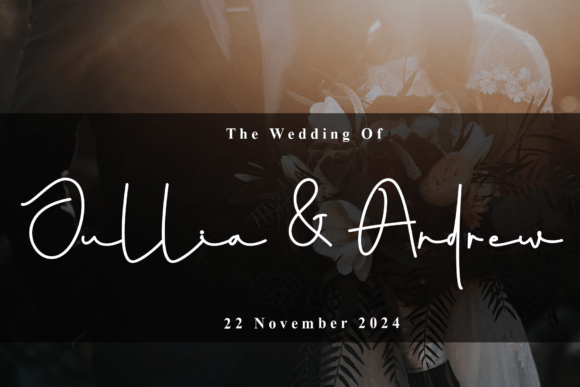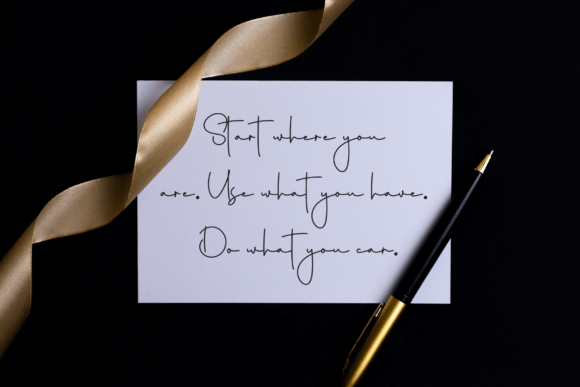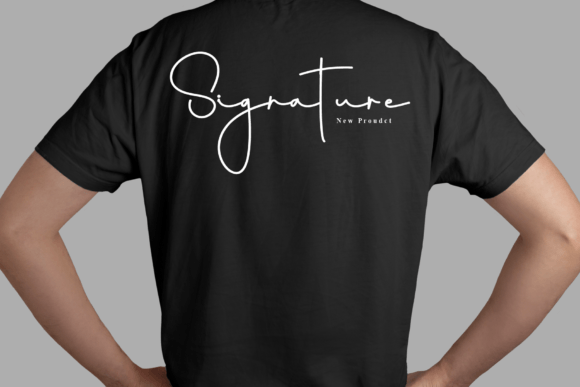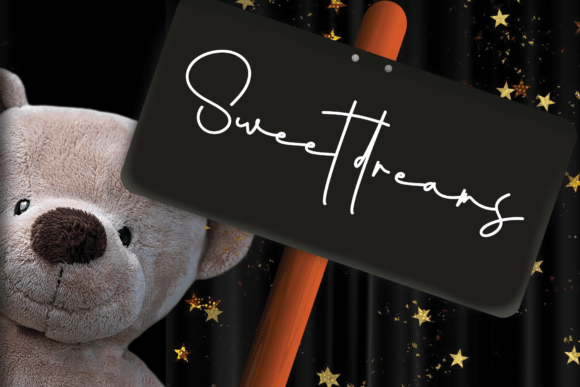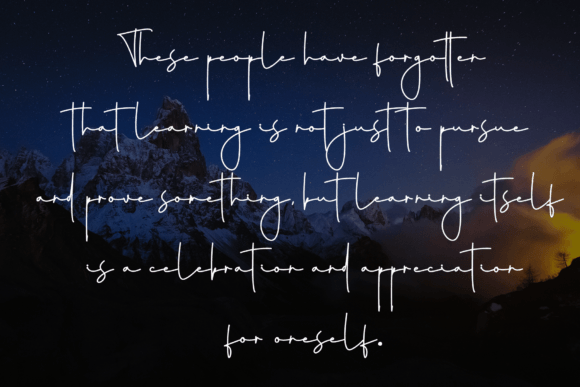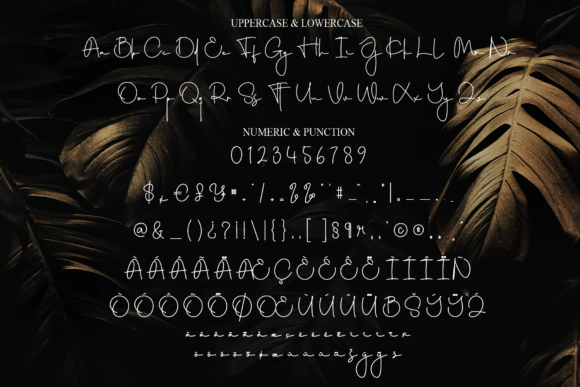
Introduction to Luxury Goods Font Font
Fonts play a crucial role in design, and the Luxury Goods Font font is a typeface that brings both character and versatility to any project. Whether you’re working on a branding project, a website, or a print design, the Luxury Goods Font font offers a unique style that can elevate your work.
Luxury Goods is a stylish and elegant script font with smooth, flowing letters.
It looks like handwriting and is perfect for adding a classy, personal touch to invitations, logos, and designs .
Key Features of Luxury Goods Font Font
Why Choose Luxury Goods Font Font?
The Luxury Goods Font font is more than just a typeface – it’s a design tool that helps you communicate your message with style and clarity. Its unique character set and versatile design make it suitable for a wide range of applications, from elegant invitations to bold headlines.
With its carefully crafted letterforms and balanced proportions, the Luxury Goods Font font ensures readability and visual appeal across all mediums.
What makes Luxury Goods Font font special?
The Luxury Goods Font font stands out with its unique design, exceptional readability, and versatility across various design applications.